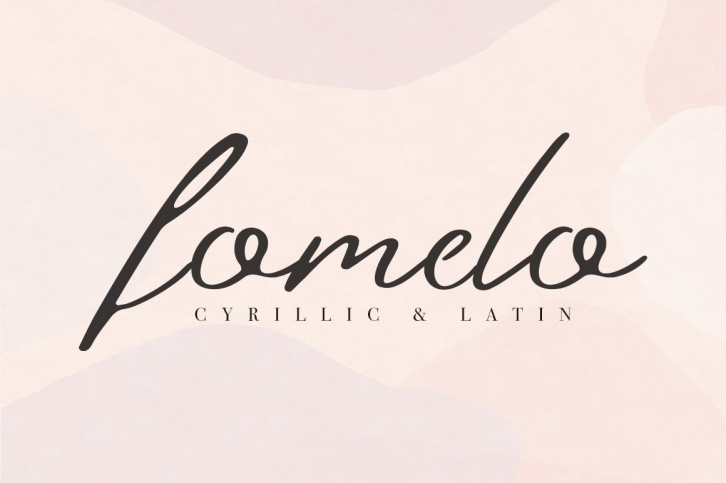
Hello, friends. This is my new font Fomelo
The font is super versatile and suitable for any project.
And one more thing, this font fully supports Cyrillic!